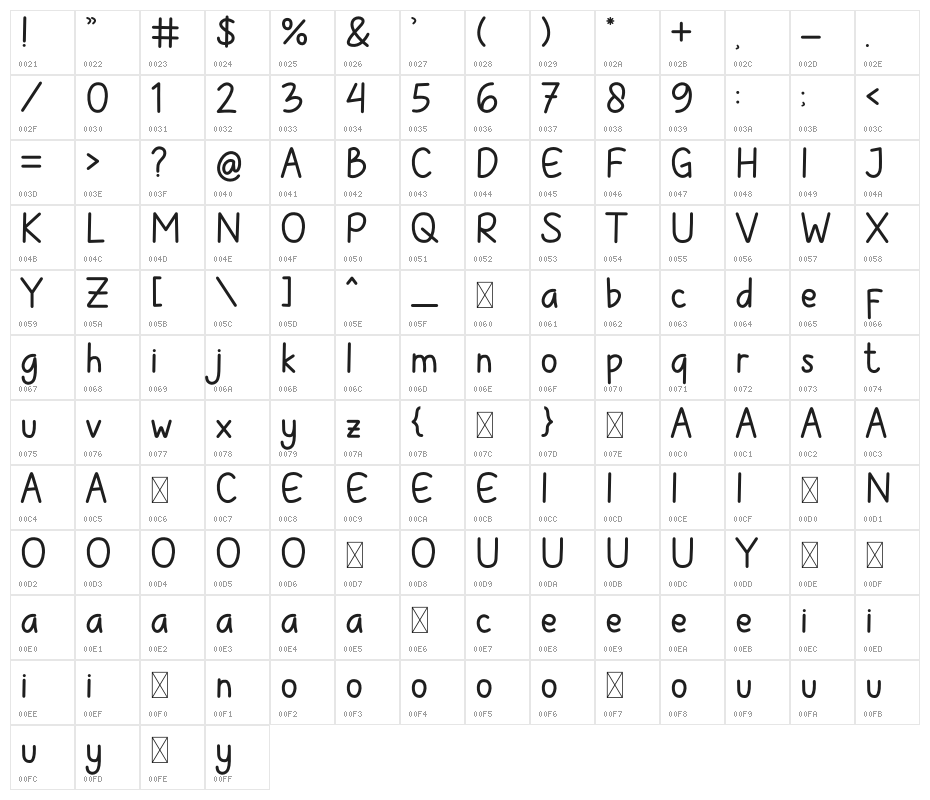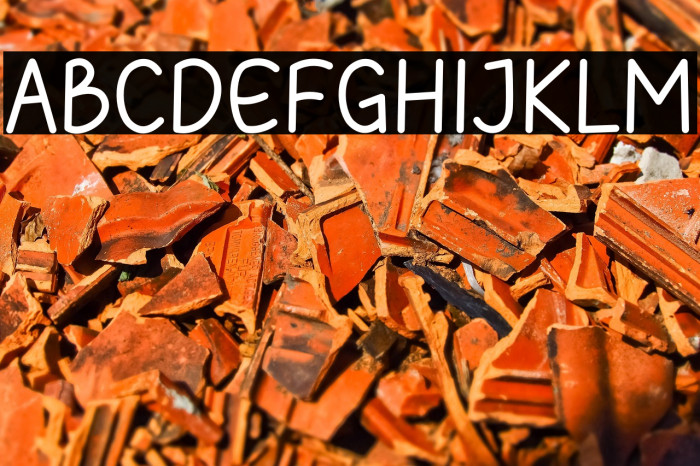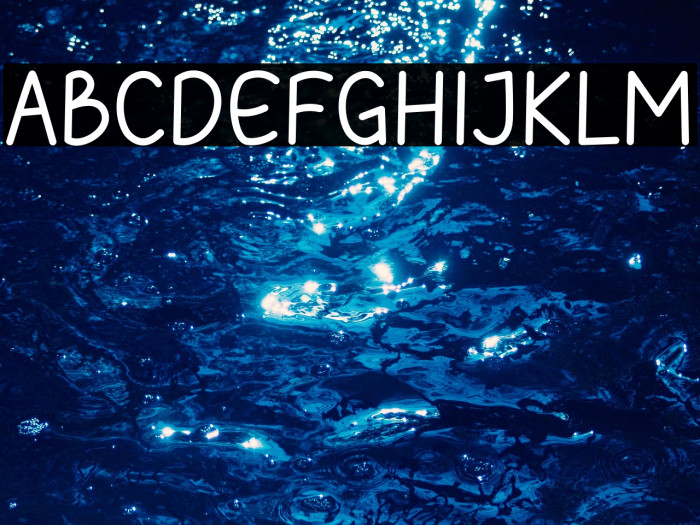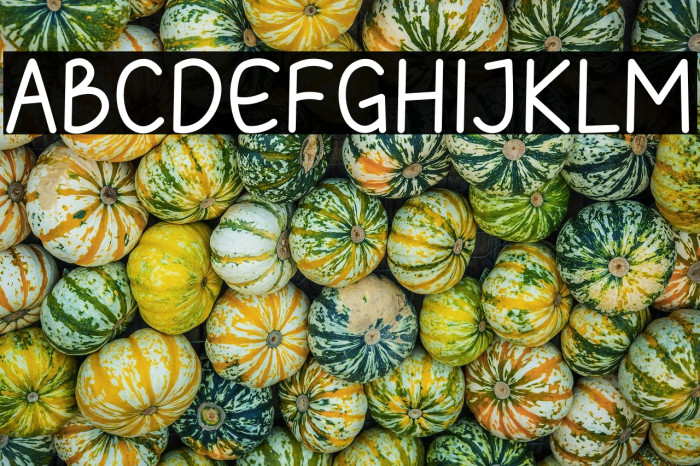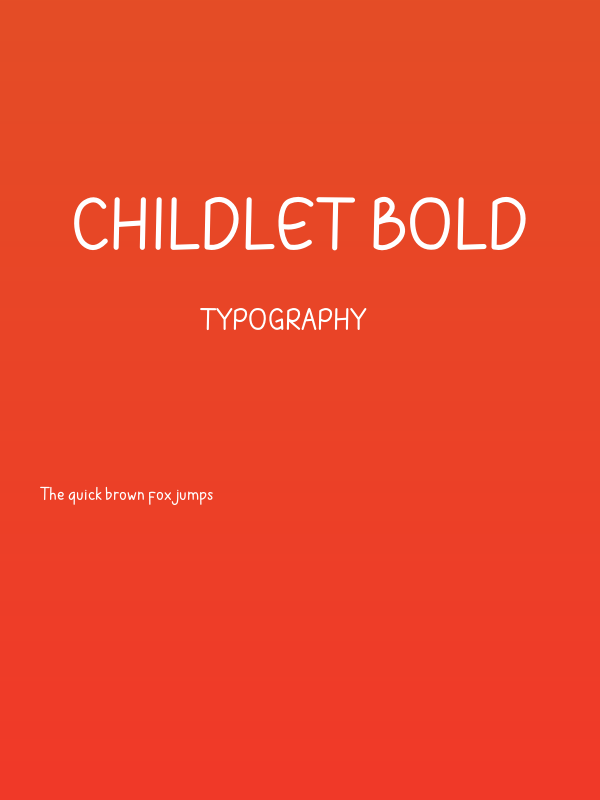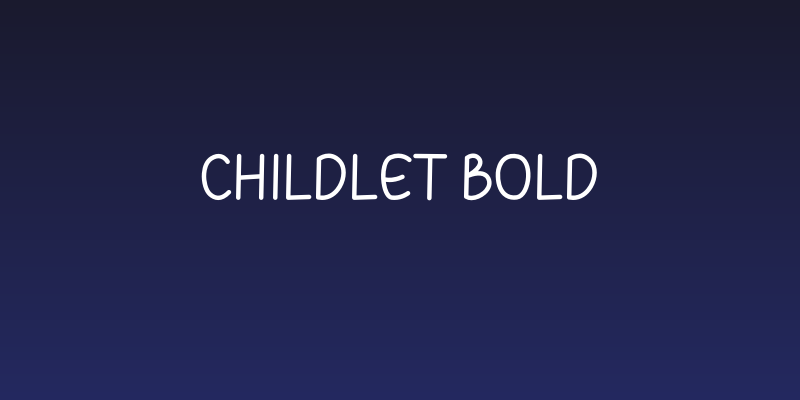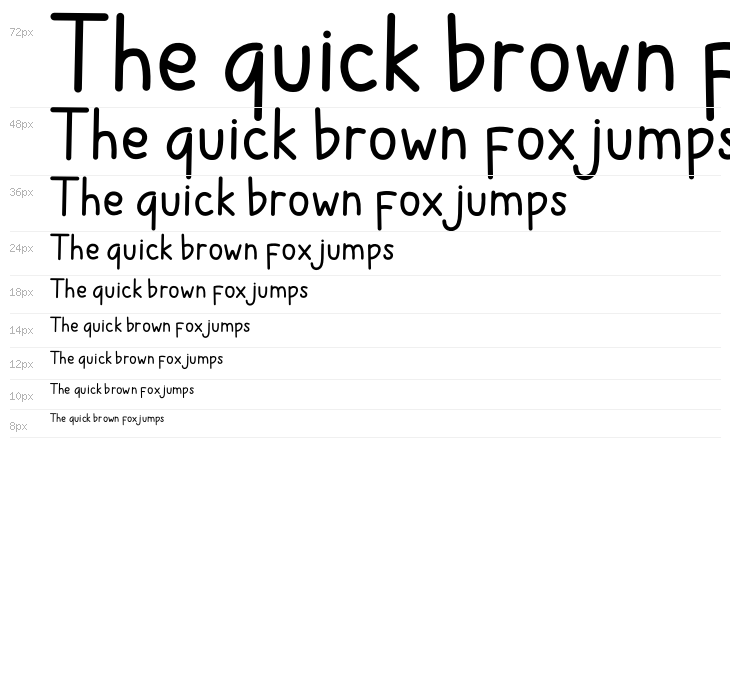
Childlet Bold Font
Childlet Bold Description
This playful and rounded font exudes a youthful and friendly vibe, making it ideal for projects aimed at children or casual settings. The characters are bold and slightly irregular, giving them a hand-drawn appearance that adds to their charm. The uppercase and lowercase letters maintain a consistent style, with smooth curves and a slight tilt that enhances readability. The numerals and special characters are equally well-crafted, ensuring versatility across various applications. Its boldness ensures visibility, while the rounded edges soften its overall look, making it approachable and fun.
| Proposed Projects | Ideal for children's books, educational materials, playful branding, and casual invitations. |